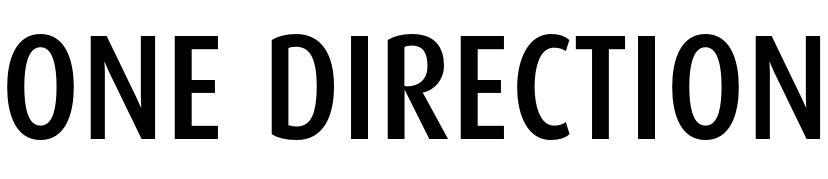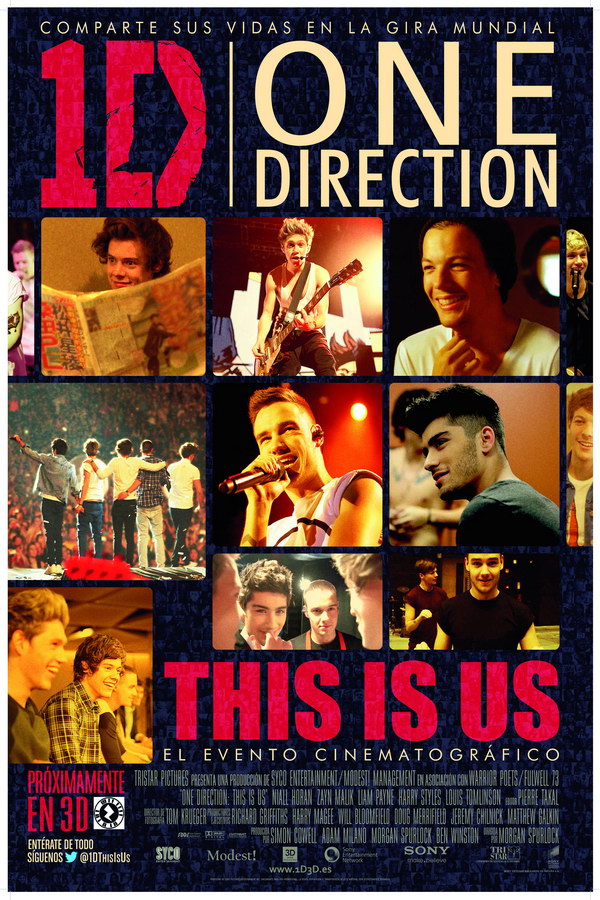
One Direction: This Is Us Font
DocumentaryOne Direction: This Is Us is a documentary film about the popular boy band One Direction, released in 2013. It follows their journey from being contestants on the British version of The X Factor to becoming a global sensation.
It's likely that the font used for "One Direction" is FF Dax Condensed Medium, crafted by Hans Reichel. As for "THIS IS US," it appears to be set in Impact, a realistic sans-serif font created by Geoffrey Lee back in 1965.